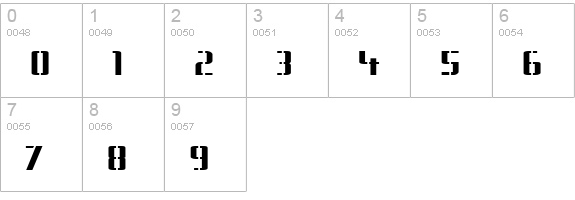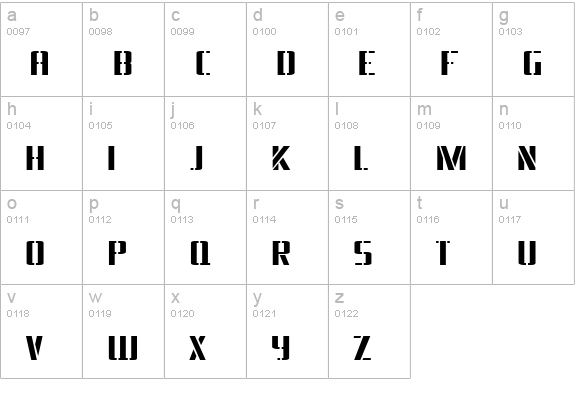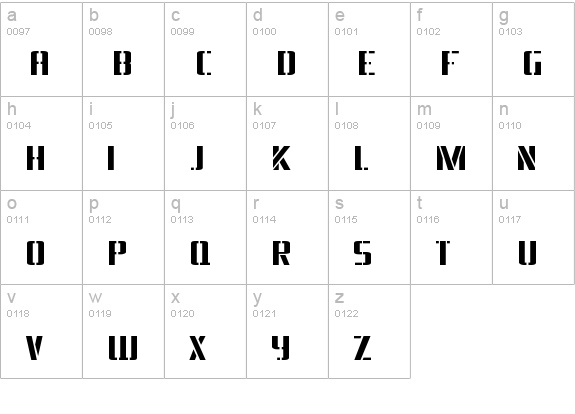
Braeside Lumberboy Font Details
Braeside Lumberboy font is a charming and rustic typeface that exudes a sense of warmth and nostalgia. With its playful yet sturdy letterforms, this font is perfect for adding a touch of whimsy to your designs. Whether you're creating a cozy invitation, a vintage-inspired logo, or a fun poster, Braeside Lumberboy will bring a unique and handcrafted feel to your projects. And the best part? Braeside Lumberboy font is completely free to download at FontsMarket.com. So go ahead and add this delightful font to your collection today and let your creativity shine with its distinctive style.